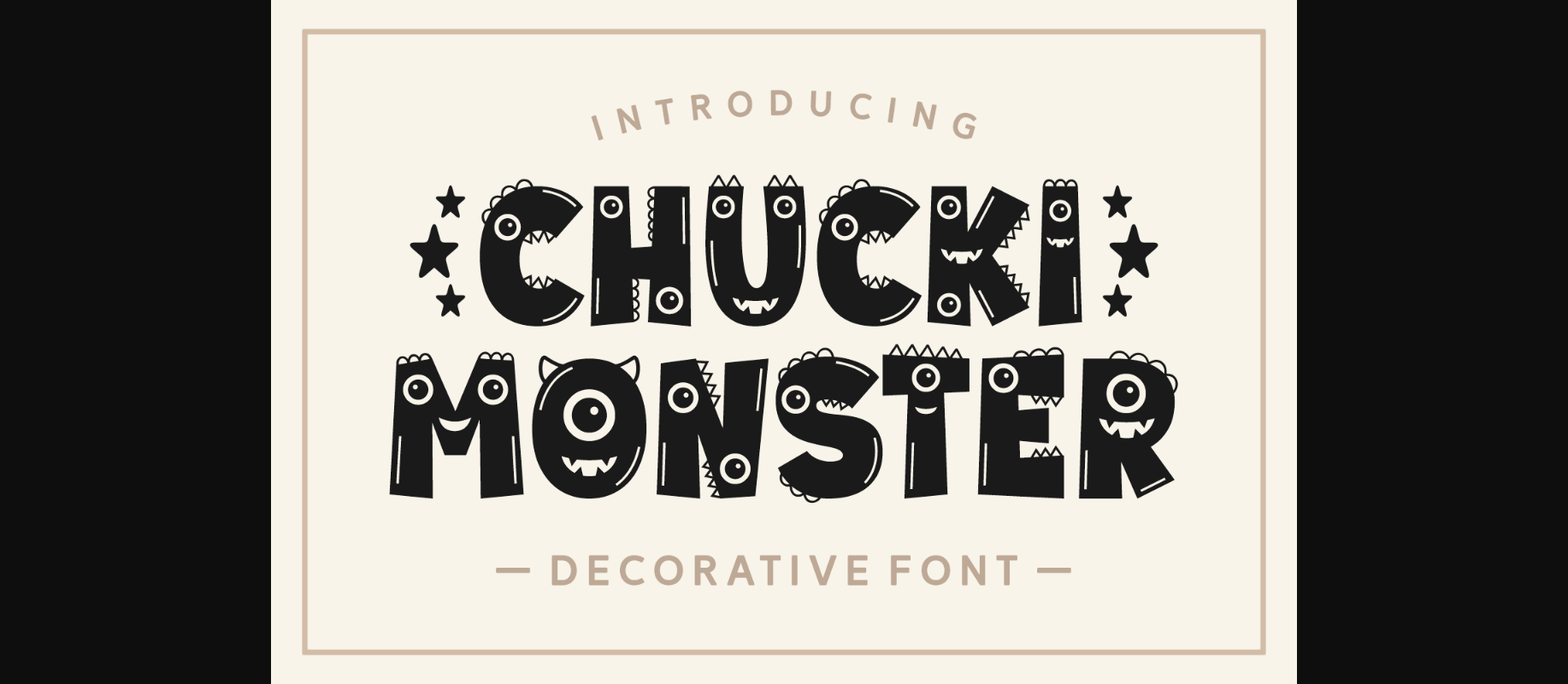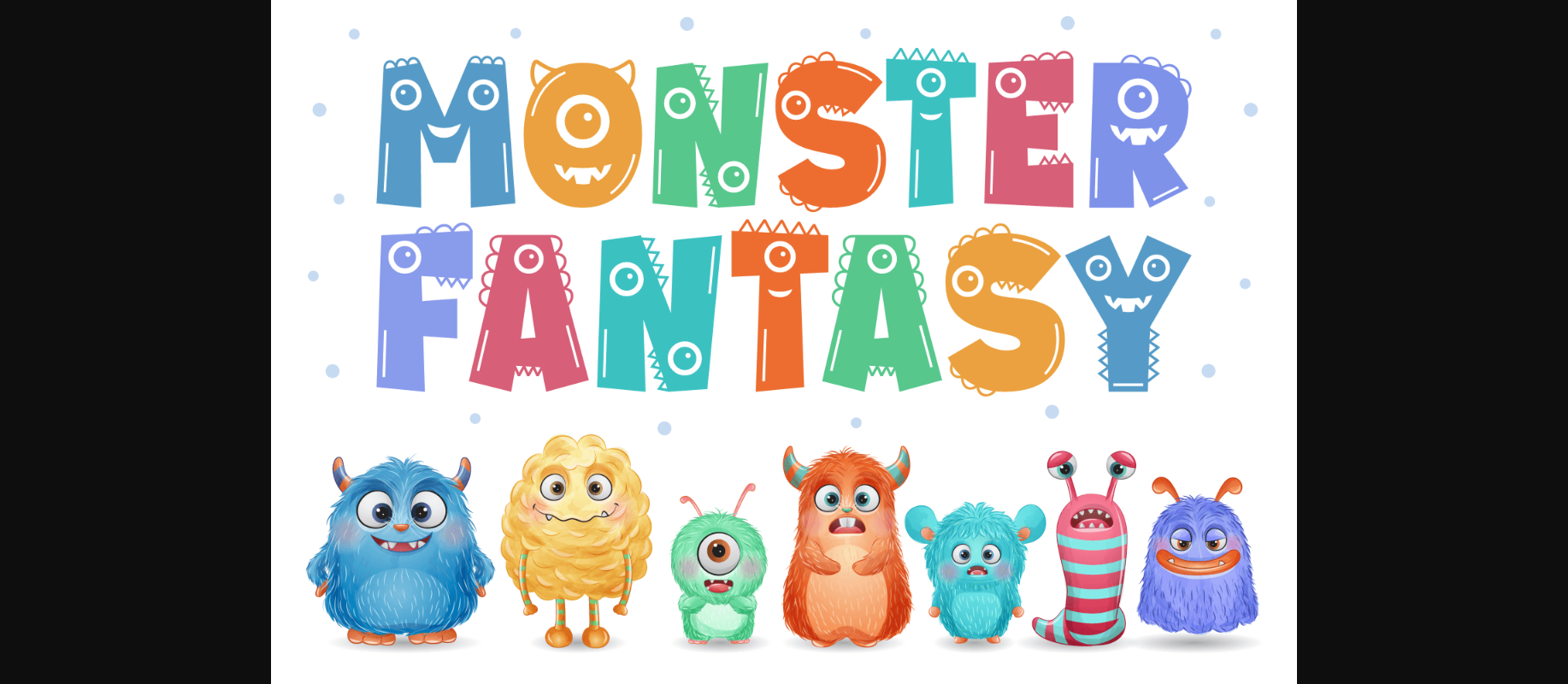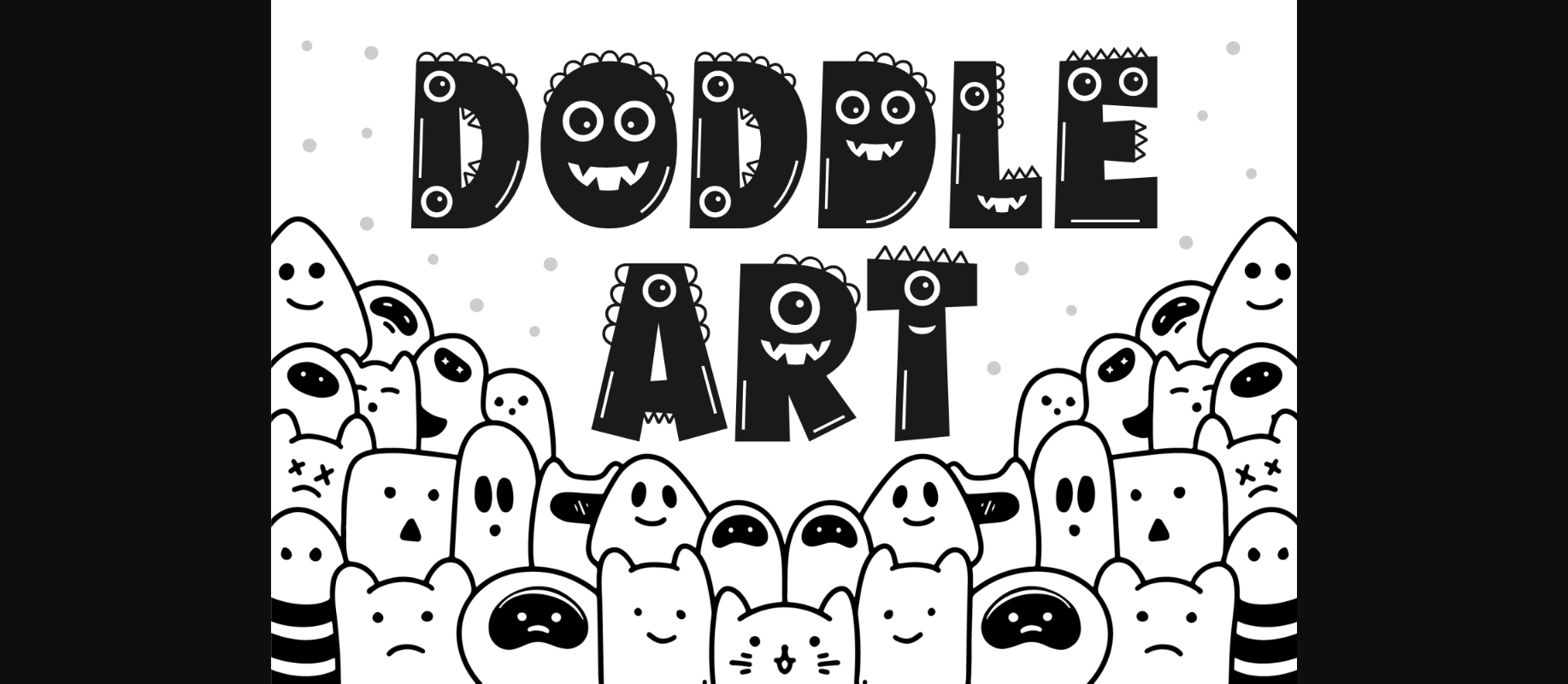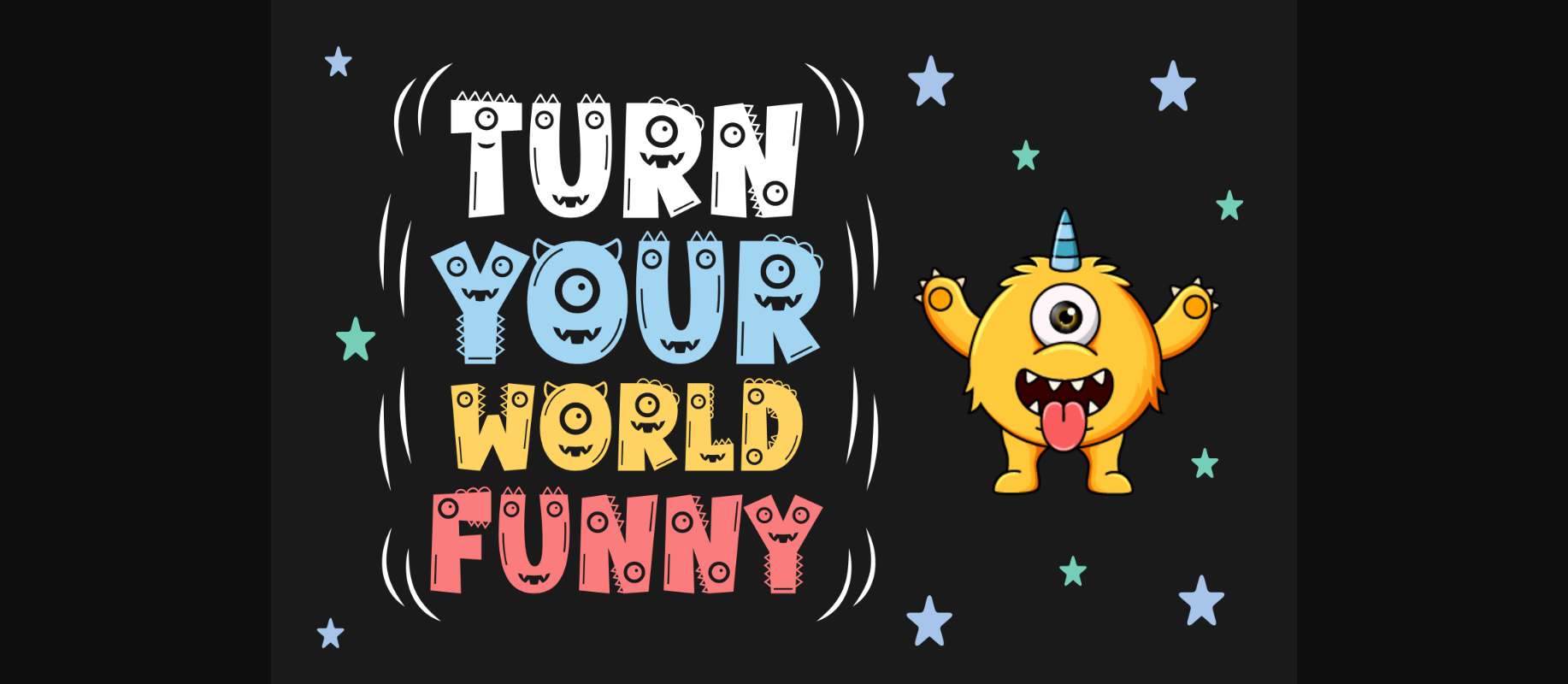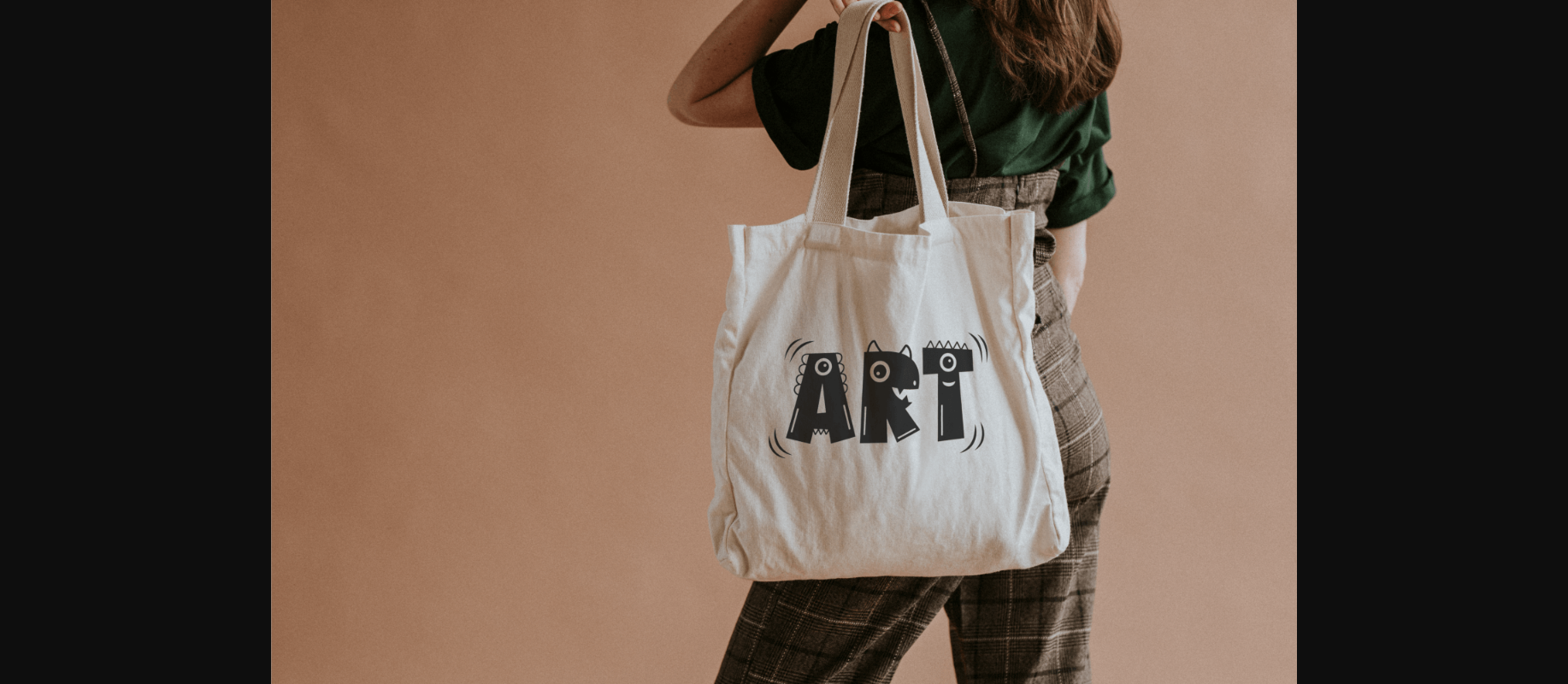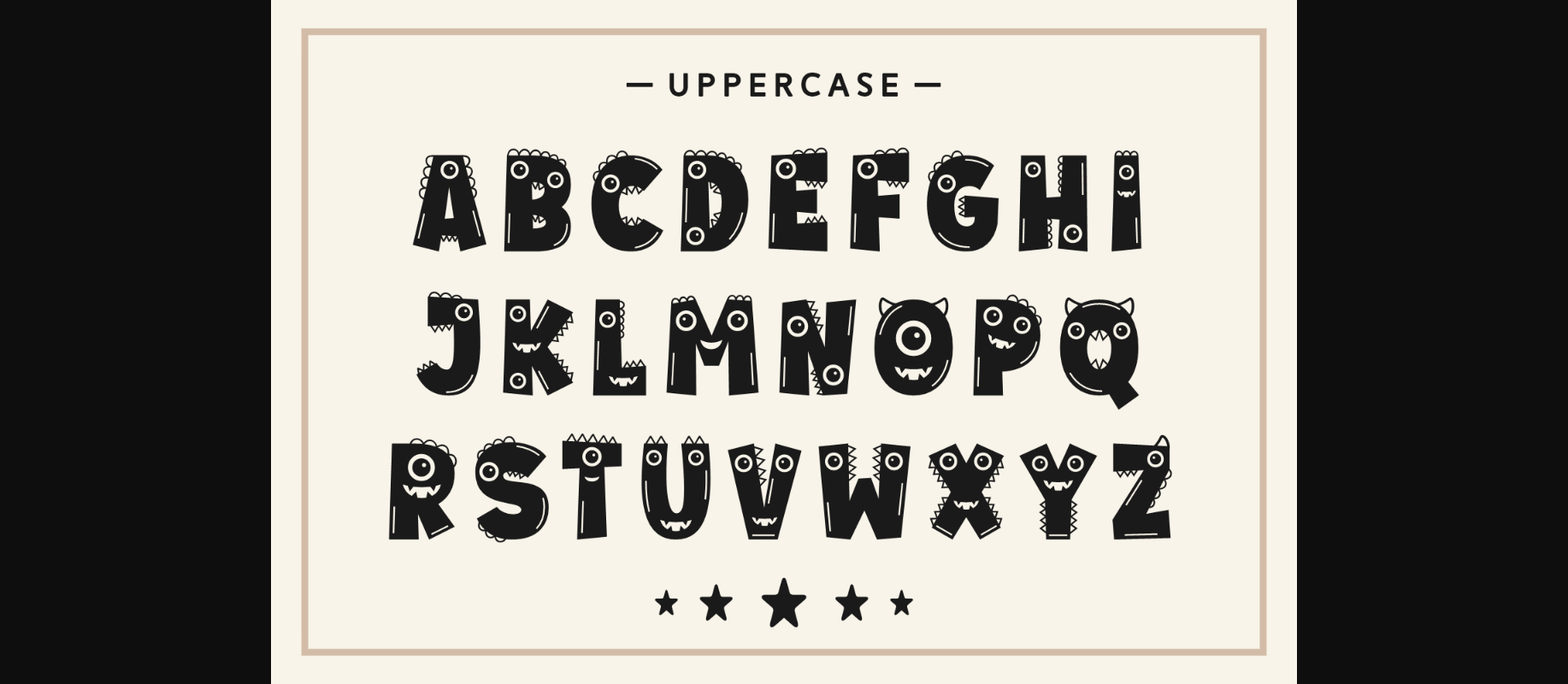
About Chucky Monster Font
Chucky Monster is a cute, fun, playful, and expressive monster font! Great for party card making, banners, wallpaper design, crafting design, promotion and more!